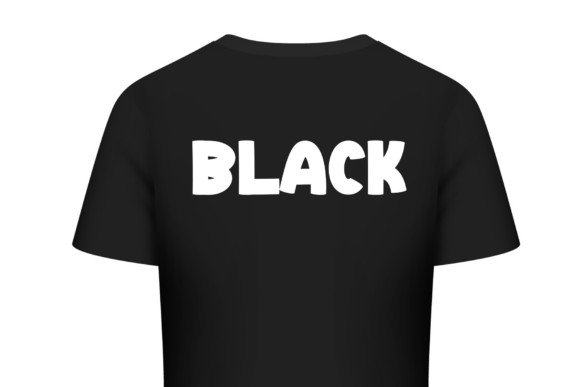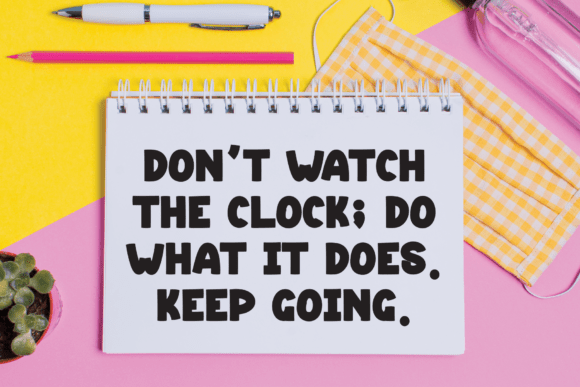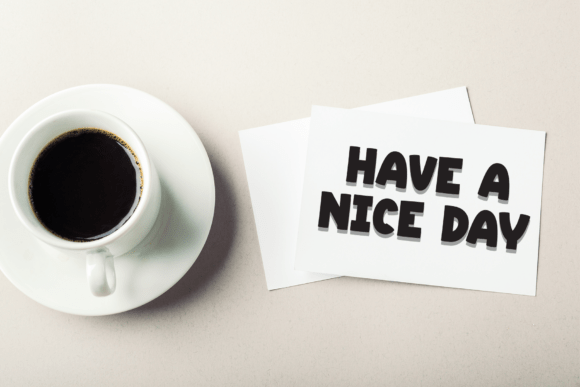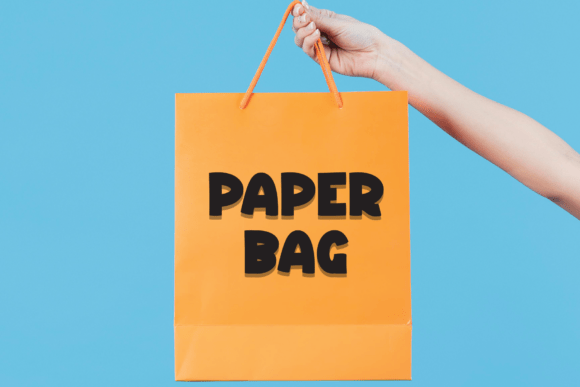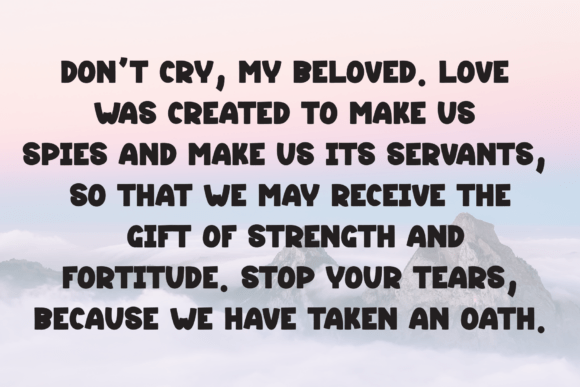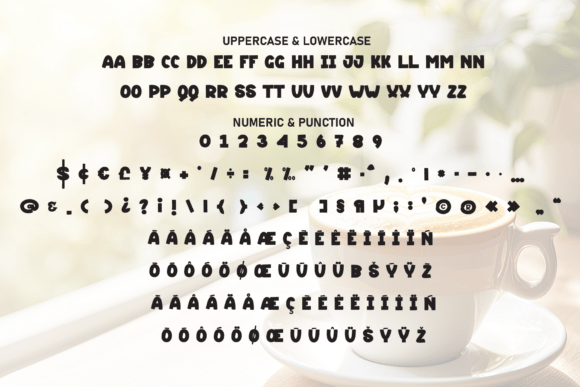
Coffee Sunday Font: The Perfect Blend of Freshness and Friendliness
Are you a designer or crafter looking for a font that can add a touch of warmth and approachability to your projects? Look no further than the Coffee Sunday Font. This casual and neat display font is designed to radiate a fresh, friendly vibe that’s perfect for a wide range of applications, from packaging and posters to social media graphics and more.
Clean Lines and Relaxed Structure
One of the standout features of the Coffee Sunday Font is its clean lines and relaxed structure. The font’s design is characterized by a sense of simplicity and elegance, making it easy to read and understand. The clean lines also give the font a modern and polished appearance, while the relaxed structure adds a touch of informality and friendliness.
This unique combination of clean lines and relaxed structure makes Coffee Sunday Font perfect for projects that require a balance of professionalism and approachability. Whether you’re designing a logo, creating a social media graphic, or crafting a poster, this font is sure to add a touch of charm and clarity to your work.
Perfect for Packaging, Posters, and Social Media Graphics
Coffee Sunday Font is a versatile font that can be used in a wide range of applications. Its clean and modern design makes it perfect for packaging, where it can be used to add a touch of sophistication and elegance to product labels and branding materials.
The font is also ideal for posters, where its bold and eye-catching design can be used to grab attention and communicate a message. And for social media graphics, Coffee Sunday Font is a great choice, as its friendly and approachable vibe can help to engage audiences and add a touch of personality to your online presence.
Approachable Design Adds Charm and Clarity
One of the key benefits of Coffee Sunday Font is its approachable design. The font’s clean lines and relaxed structure make it easy to read and understand, while its friendly and inviting vibe adds a touch of charm and personality to any project.
This approachable design is perfect for designers and crafters who want to create projects that feel warm and welcoming. Whether you’re designing a brand identity, creating a marketing campaign, or crafting a social media graphic, Coffee Sunday Font is sure to add a touch of clarity and charm to your work.
Polished Appearance
Despite its casual and relaxed vibe, Coffee Sunday Font has a polished appearance that’s perfect for professional projects. The font’s clean lines and modern design give it a sophisticated and elegant look that’s sure to impress.
This polished appearance makes Coffee Sunday Font a great choice for designers and crafters who want to create high-quality projects that feel professional and refined. Whether you’re working on a branding project, creating a marketing campaign, or crafting a social media graphic, this font is sure to add a touch of polish and sophistication to your work.
In conclusion, Coffee Sunday Font is a fantastic choice for designers and crafters who want to add a touch of freshness and friendliness to their projects. With its clean lines, relaxed structure, and approachable design, this font is perfect for a wide range of applications, from packaging and posters to social media graphics and more.
Whether you’re looking for a font that can add a touch of charm and clarity to your work, or simply want to create projects that feel warm and welcoming, Coffee Sunday Font is a great choice. So why not give it a try and see how it can elevate your designs and add a touch of polish to your projects?